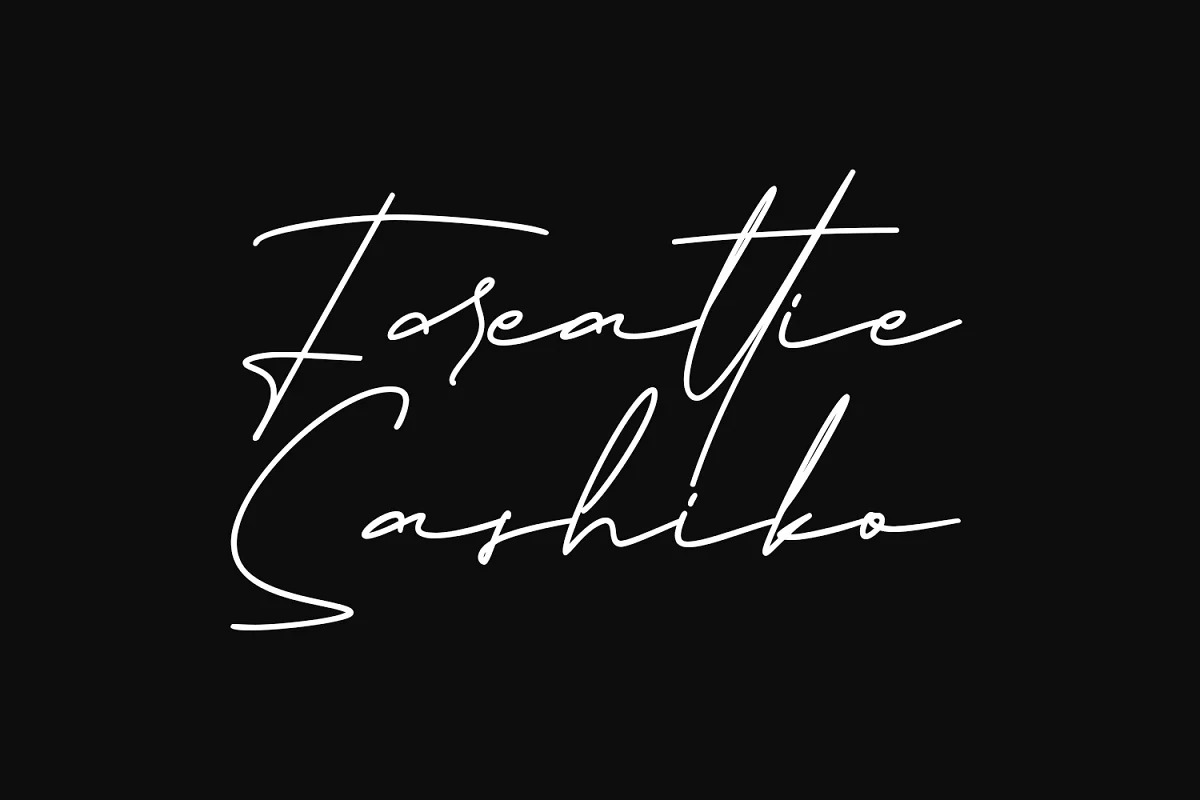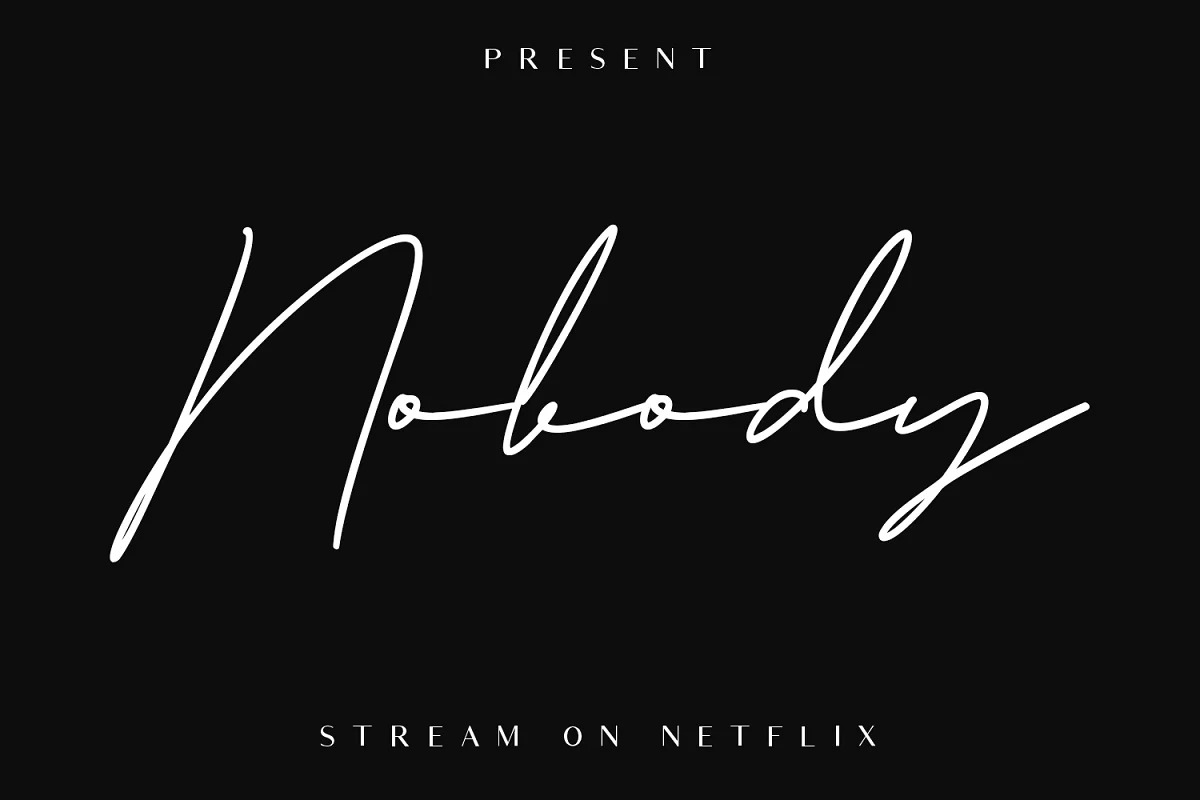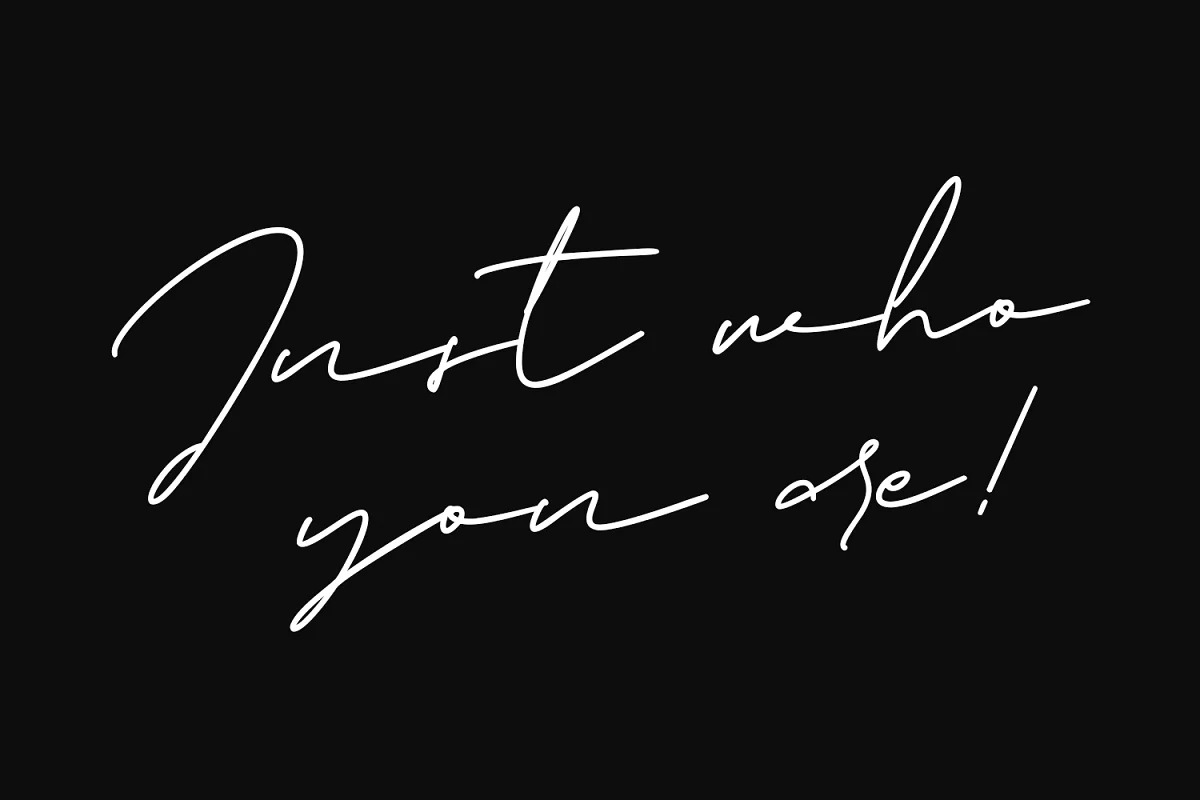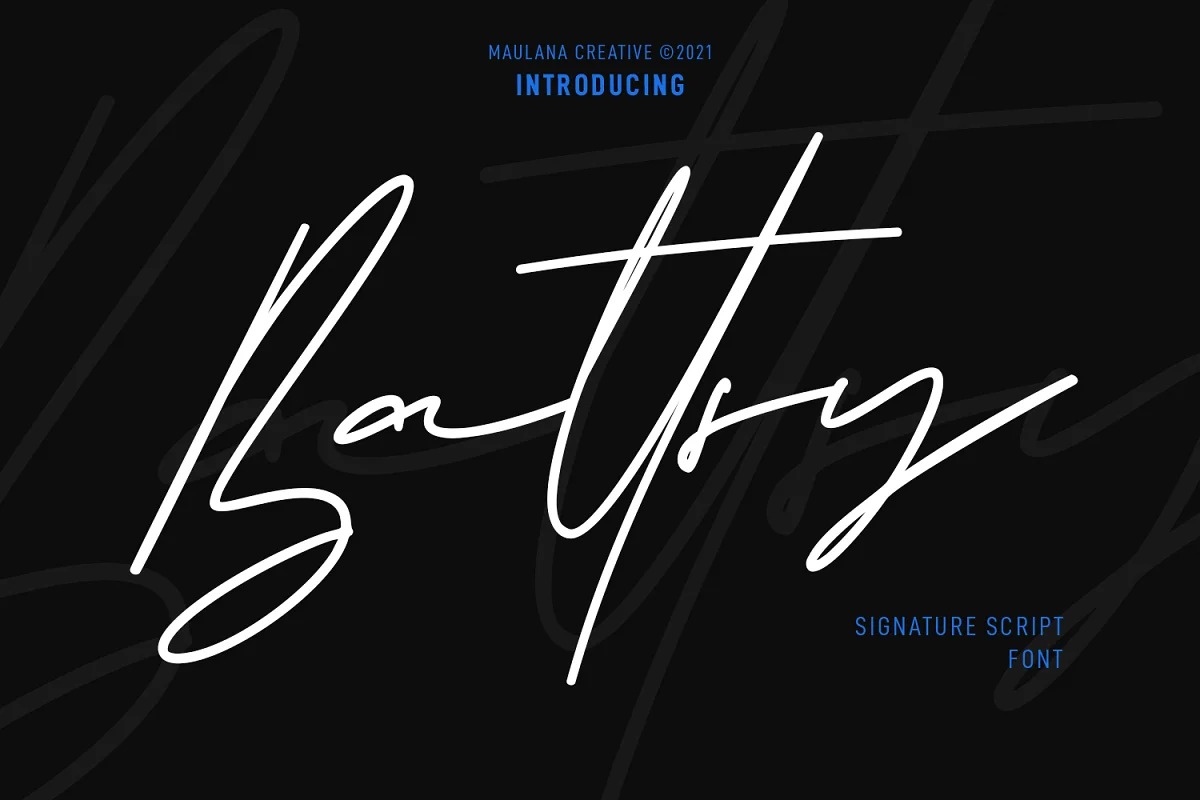
Battsy Script Font is a signature and elegant handwritten script with characters that dance along the baseline. To give you an extra creative work. Battsy font support multilingual more than 100+ language. This font is good for logo design, Social media, Movie Titles, Books Titles, a short text even a long text letter and good for your secondary text font with sans or serif. Make a stunning work with Battsy font.